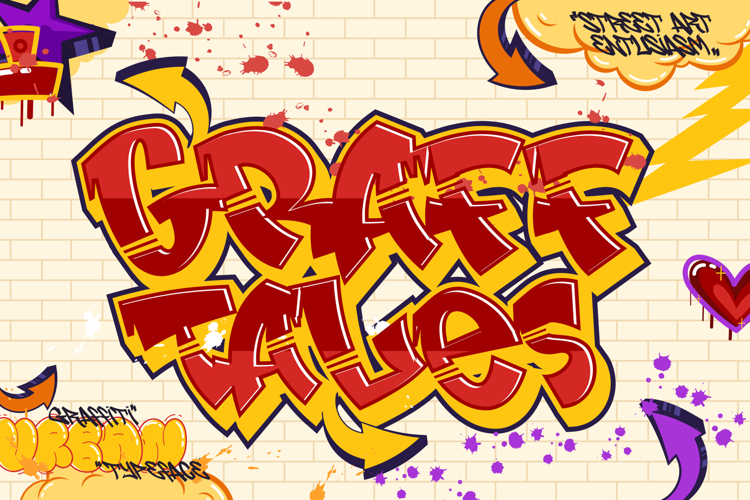
Graff Tales - Awesome Graffiti Font
Graff Tales is an awesome graffiti font that captures the raw energy and urban vibe of street art. Perfect for designers looking to inject bold, edgy, and dynamic elements into their projects, this font stands out with its authentic graffiti style.
🎨 Urban Energy: Graff Tales brings the essence of street art to your designs. Its bold, irregular lines and vibrant flair make it ideal for projects that need a touch of urban attitude and rebellious spirit.
🖌️ Authentic Style: Each character in Graff Tales is meticulously designed to mimic real graffiti, ensuring your text looks like it was tagged on a city wall. This authenticity adds a layer of credibility and grit to your designs.
💥 Bold and Dynamic: The font's thick, expressive strokes and dynamic shapes ensure your message makes a powerful impact. Graff Tales is perfect for headlines, posters, logos, and any design that needs to grab attention and leave a lasting impression.
🌆 Versatile Application: While it excels in urban and street-style projects, Graff Tales is also versatile enough to be used in a variety of other contexts. From music album covers and event flyers to apparel and merchandise, this font adds a unique edge to any creative work.
🚀 High-Impact Visuals: Graff Tales' bold and energetic style transforms ordinary text into high-impact visuals. Its striking appearance makes it an excellent choice for designers who want their work to stand out in a crowded visual landscape.
Elevate your design game with Graff Tales, the awesome graffiti font that brings urban flair and high-energy style to every project. Its authentic graffiti aesthetic and bold, dynamic design make it a best-selling choice for creatives seeking to make a statement.